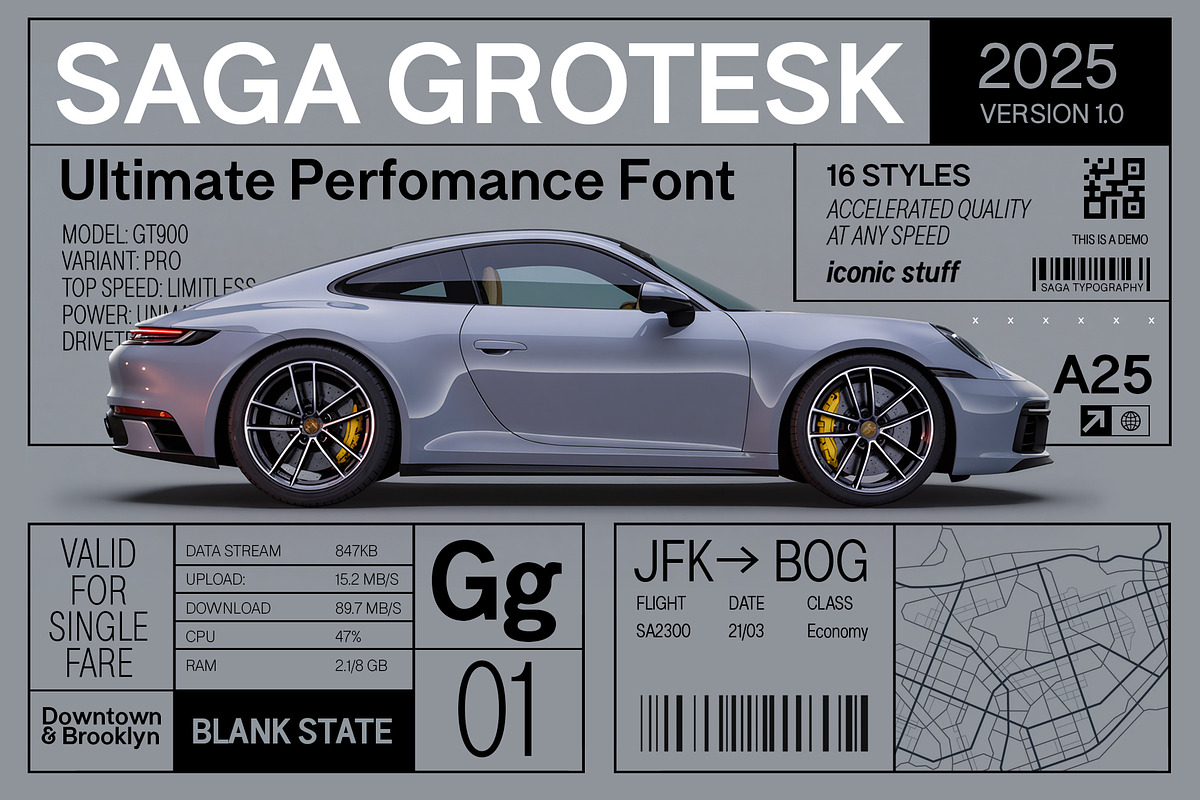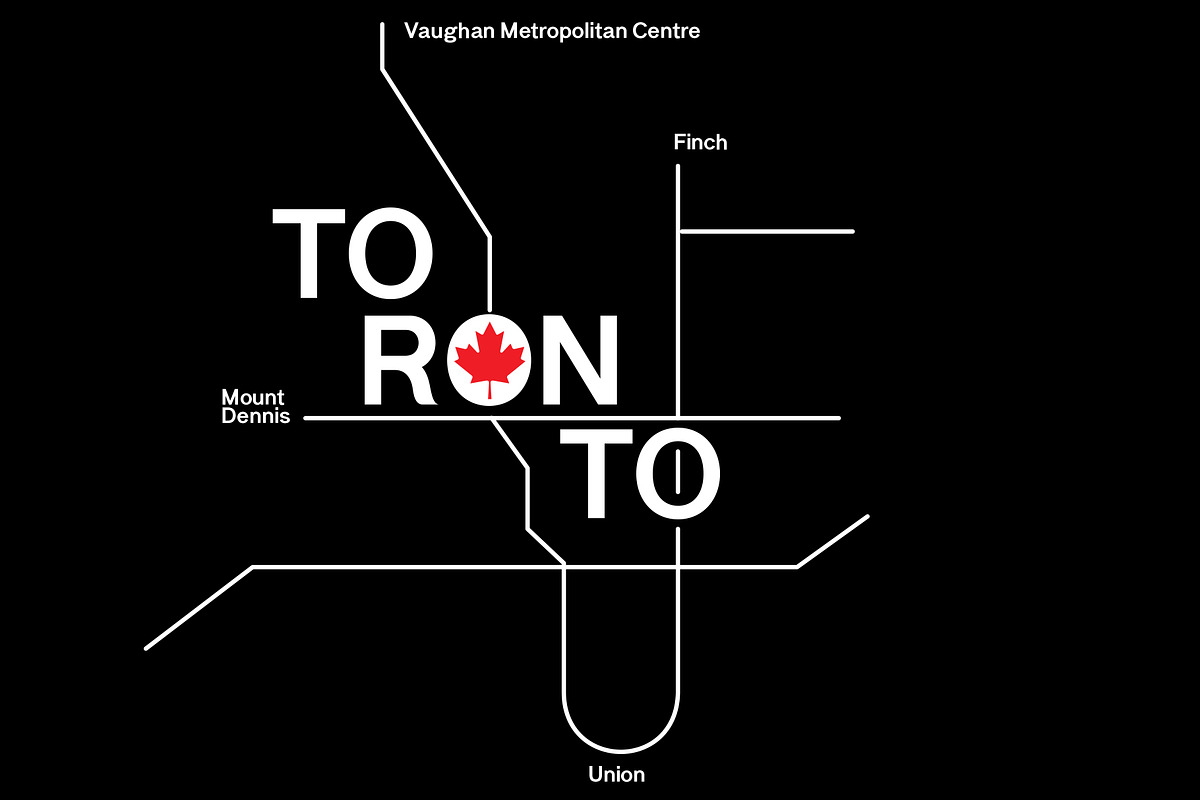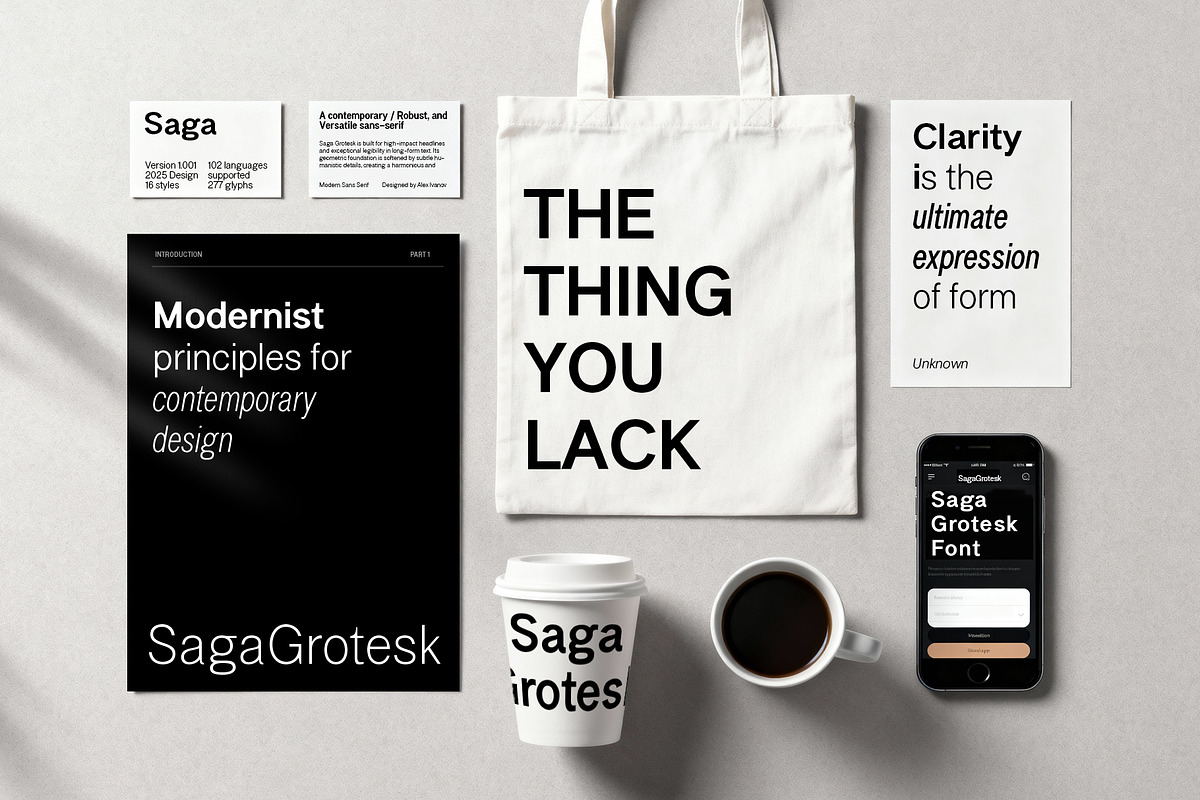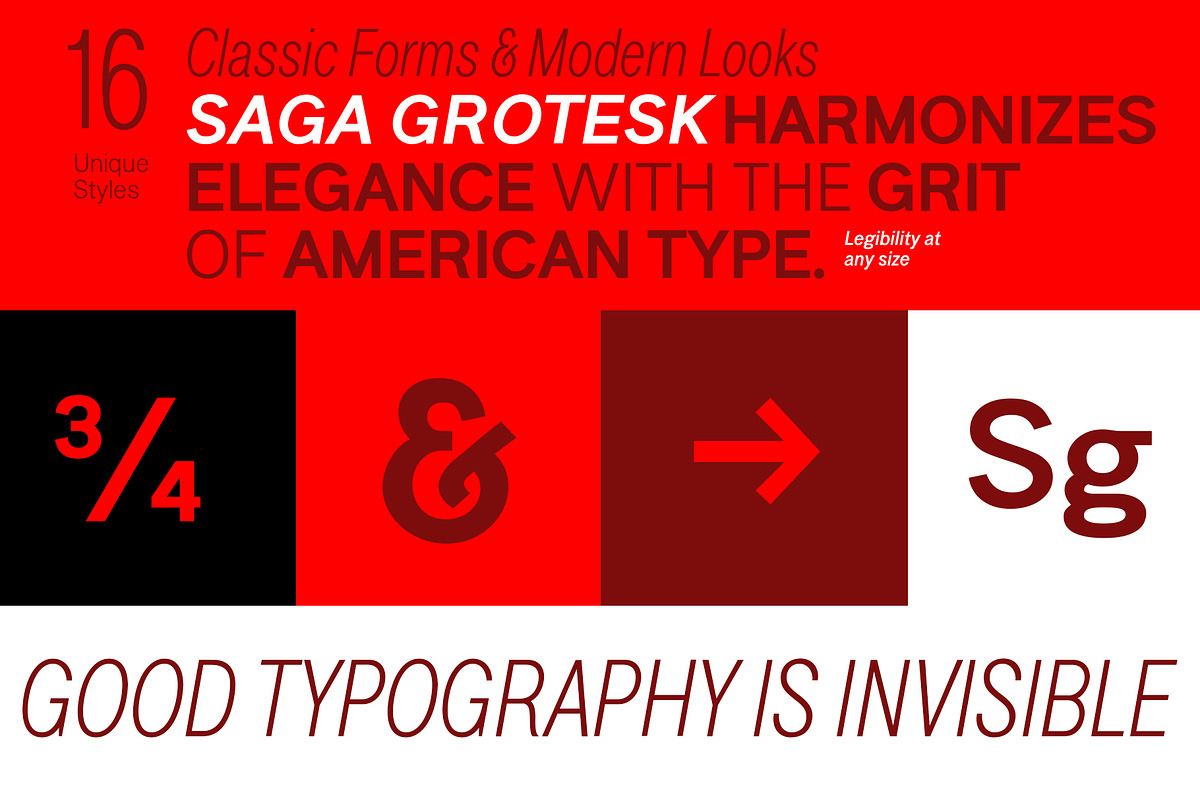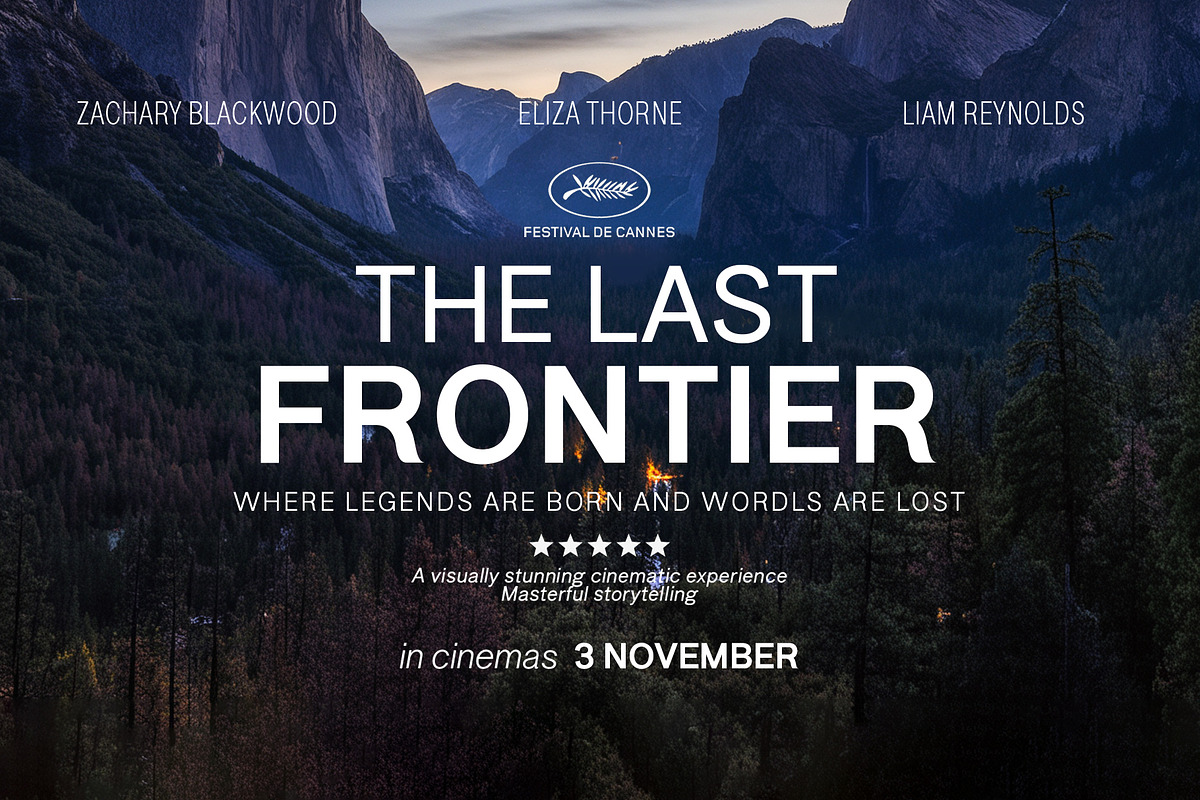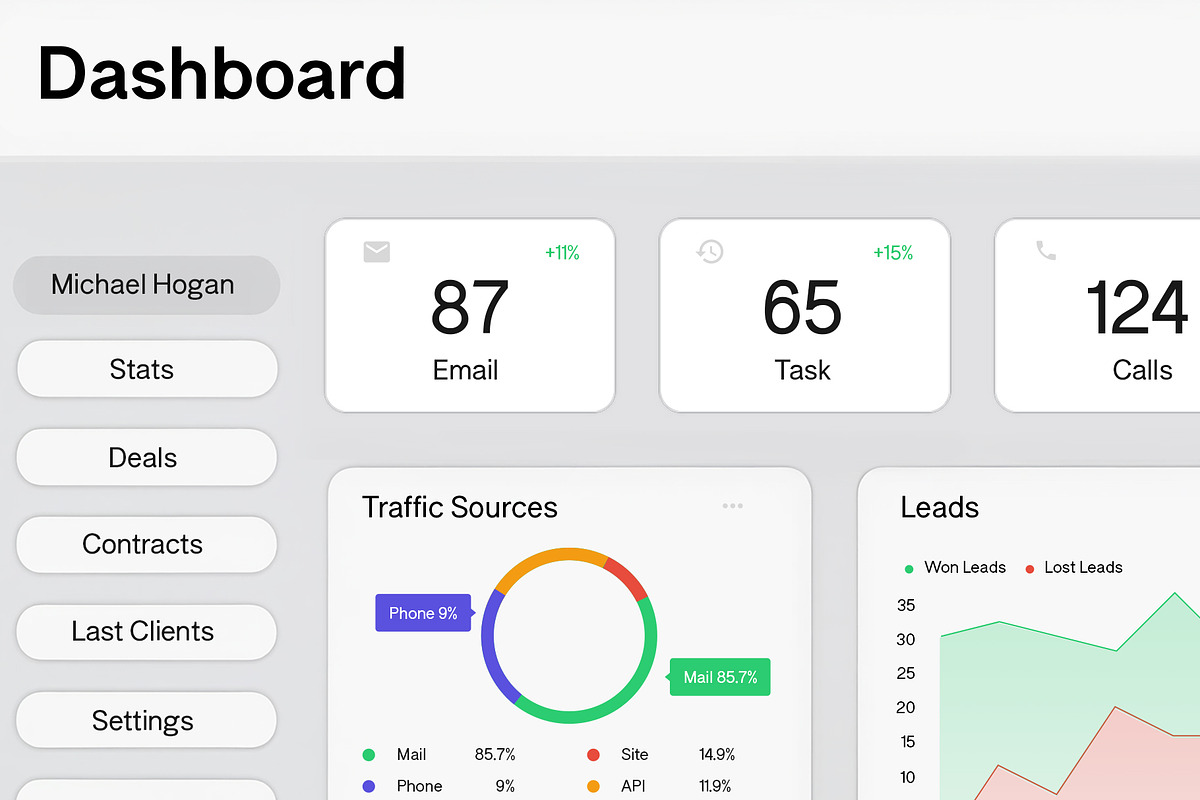
Saga Grotesk Sans Serif 16 Styles
Saga Grotesk is a sans serif family of 16 styles, ranging from Light to Black, and from Condensed to Normal widths. Designed on proportions derived from the golden ratio, it balances the timeless clarity of neo-grotesques with subtle contemporary refinements. In heavier weights, apertures open slightly wider and stroke terminals are angled to improve legibility in dense text, while in lighter and regular styles terminals remain straight, preserving a clean, classic tone. The double-storey “g” and traditional two-storey “a” emphasize its typographic heritage, distinguishing Saga Grotesk from simplified modernist grotesques. Rooted in harmony and proportion, Saga Grotesk is equally suited for long-form text and impactful headlines, bridging European precision with the bold pragmatism of American grotesques.